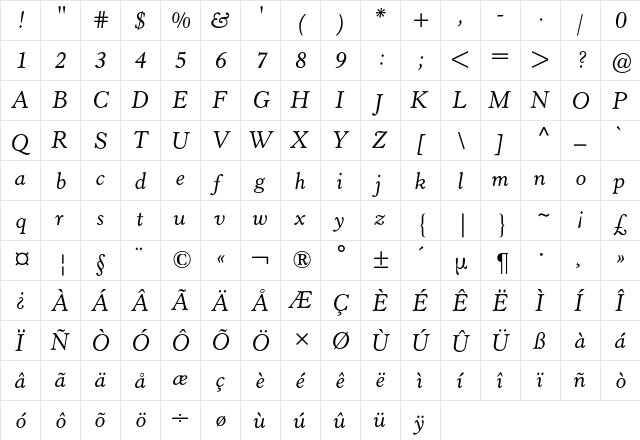
Horley Old Style BQ Regular Font Preview
Horley Old Style BQ Regular
Design Context for Horley Old Style BQ Typeface
Horley Old Style BQ is a composed and adaptable typeface that performs quietly and consistently across a wide range of design contexts.